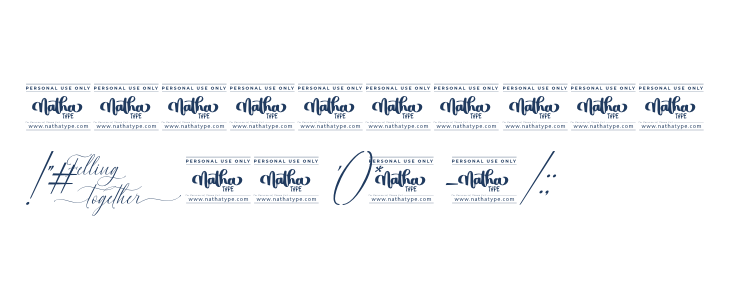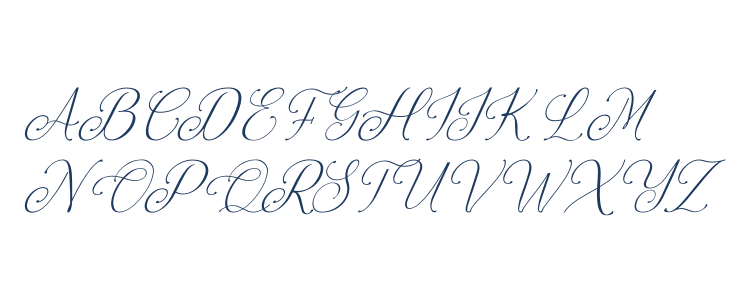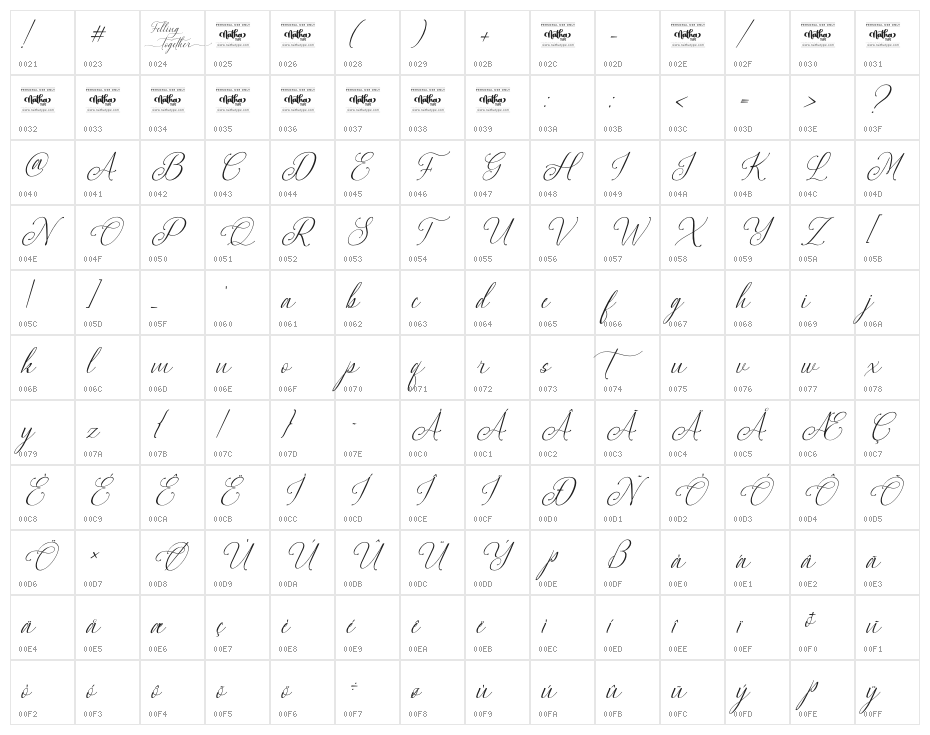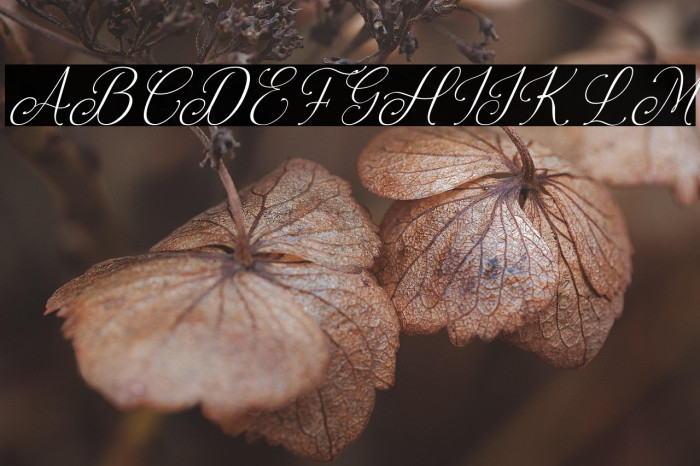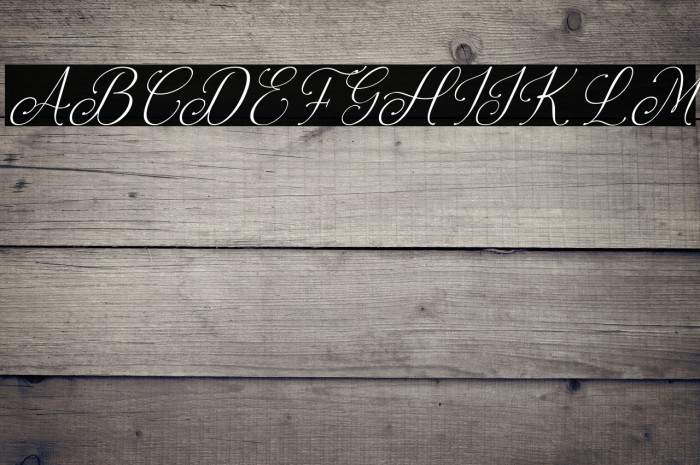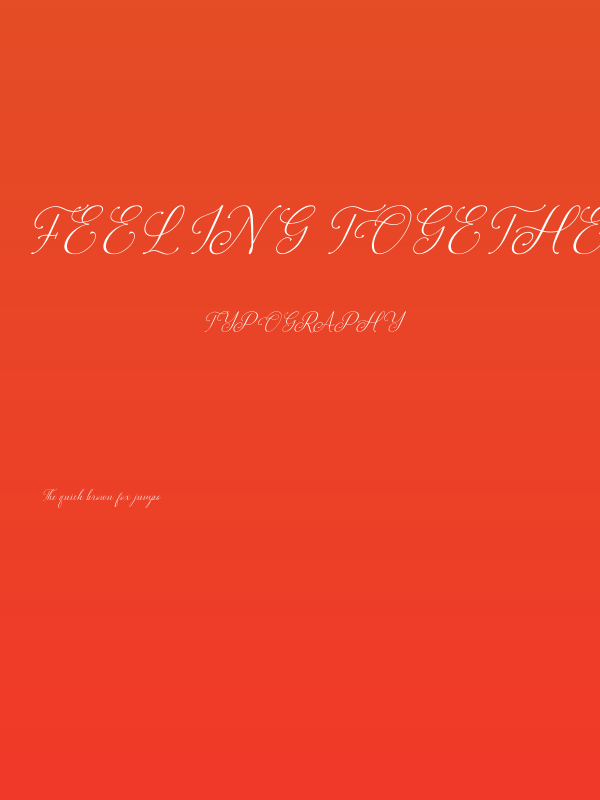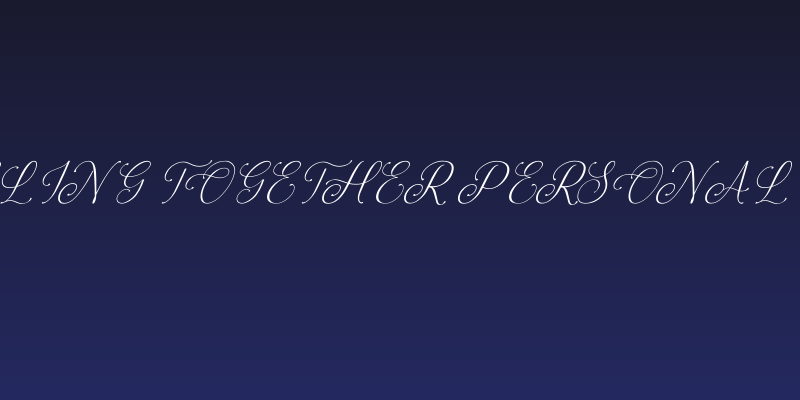
Feeling Together Personal Use Font
Feeling Together Personal Use Description
Elegant, flowing script font with high contrast between thick and thin strokes, featuring ornate swashes and a handwritten calligraphic style. Uppercase letters are decorative and interconnected, while lowercase letters are fluid and graceful.
| Overall Style | Decorative, Elegant, Handwritten |
| Use Case | Logos, Invitations, Headlines, Decorative text |
| Proposed Projects | Wedding invitations, greeting cards, branding, social media graphics, elegant packaging, event signage. |